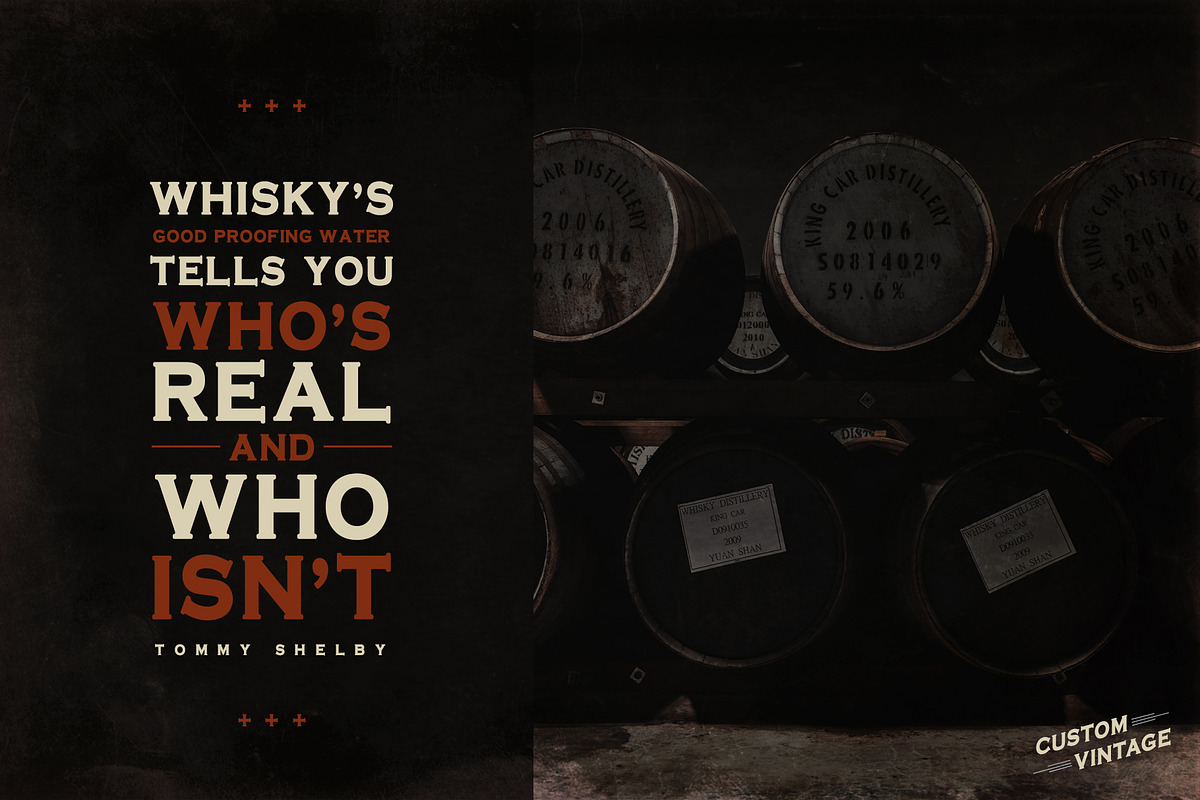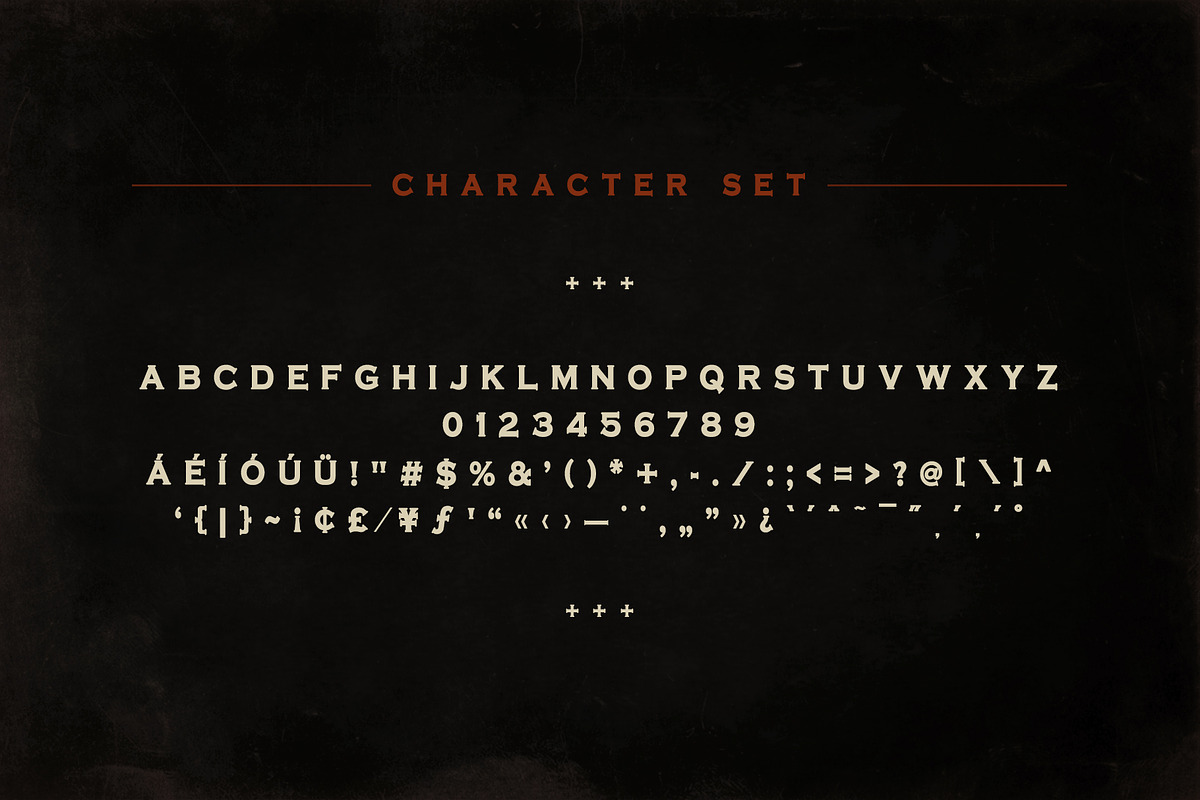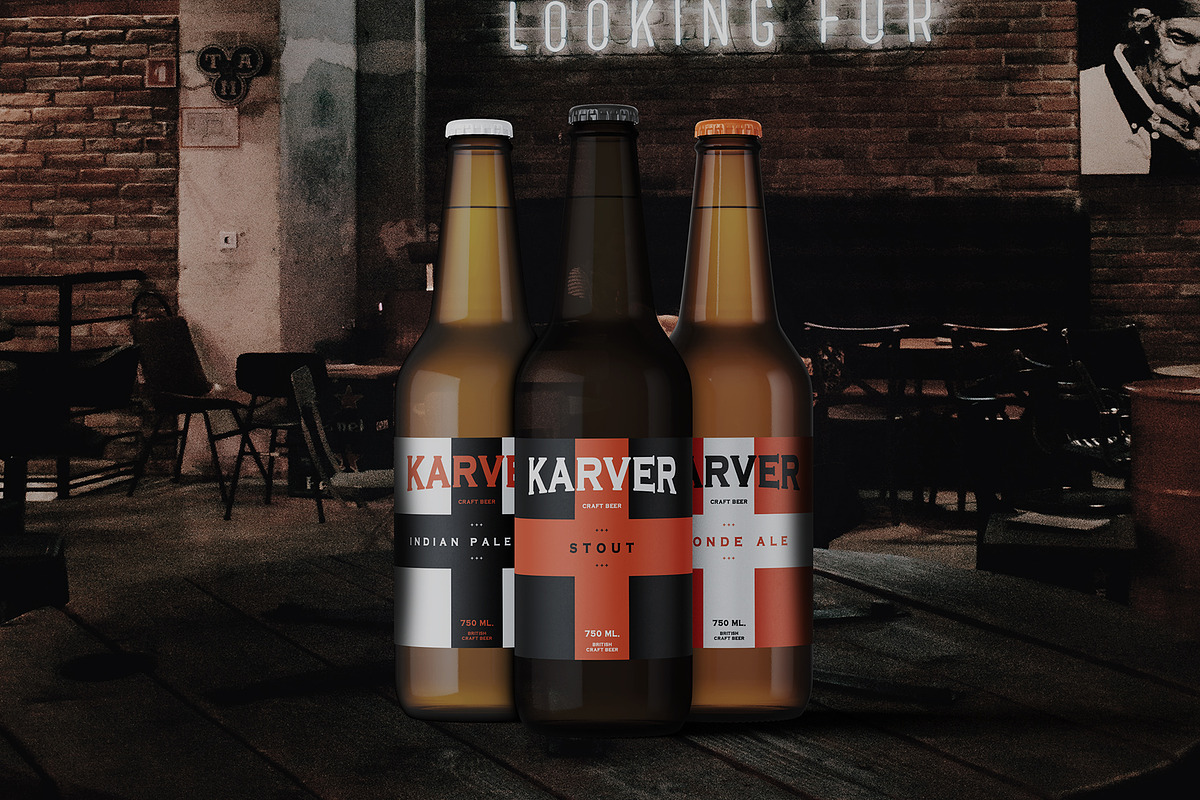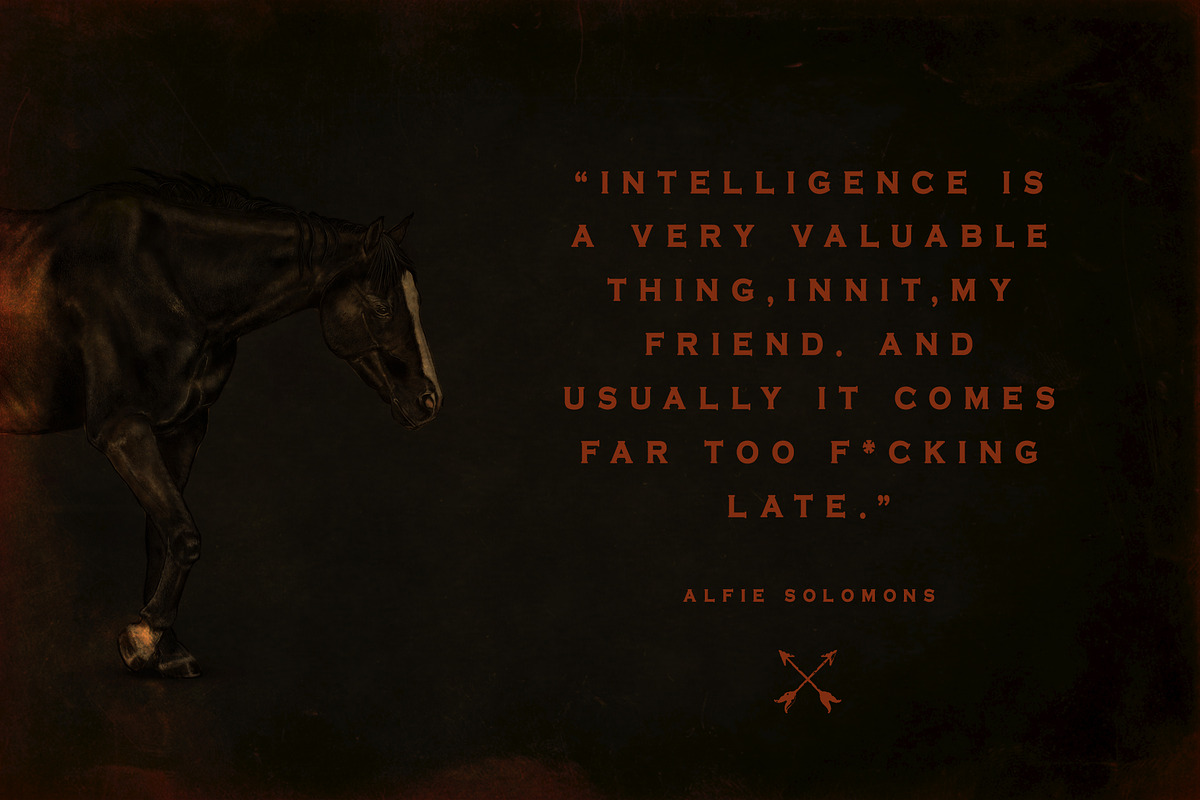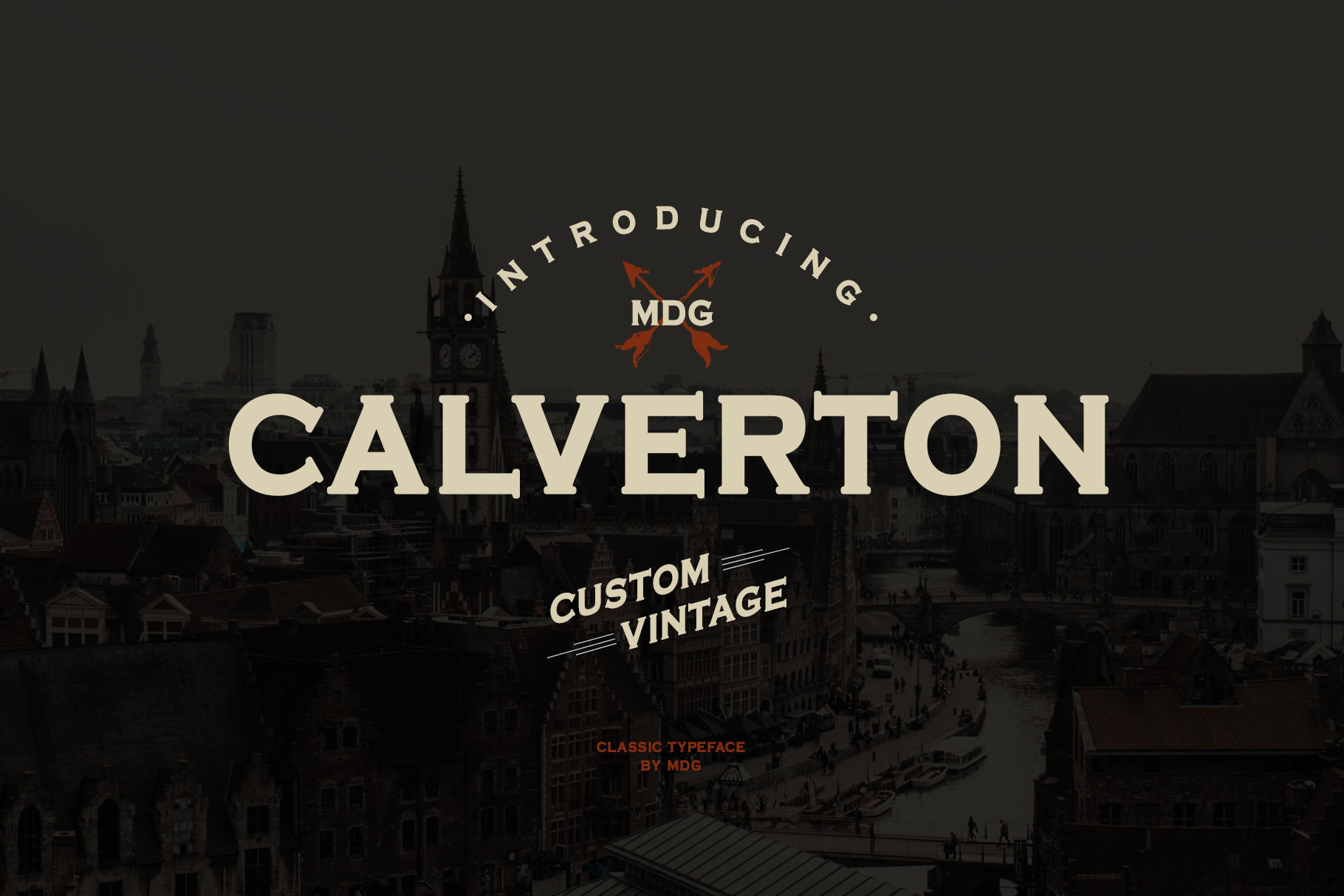
Calverton Font
Calverton Display Typeface
Is a strong and bold typography, with smooth edges to simulate vintage printing. Perfect for vintage logo designs. It contains characters, numbers and symbols.